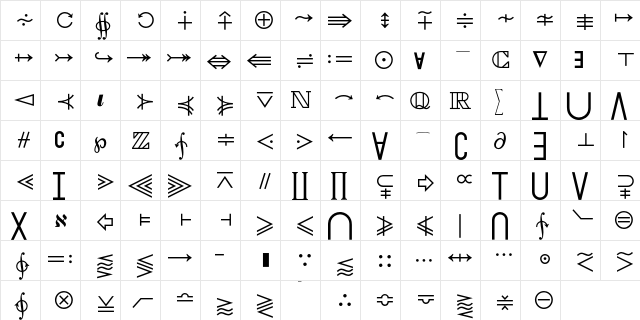
Mathematical Pi 2 BQ Regular
Design Context for Mathematical Pi 2 BQ Typeface
Mathematical Pi 2 BQ takes a measured approach to typography — its balanced proportions and neutral character make it a reliable workhorse for both digital and print work.